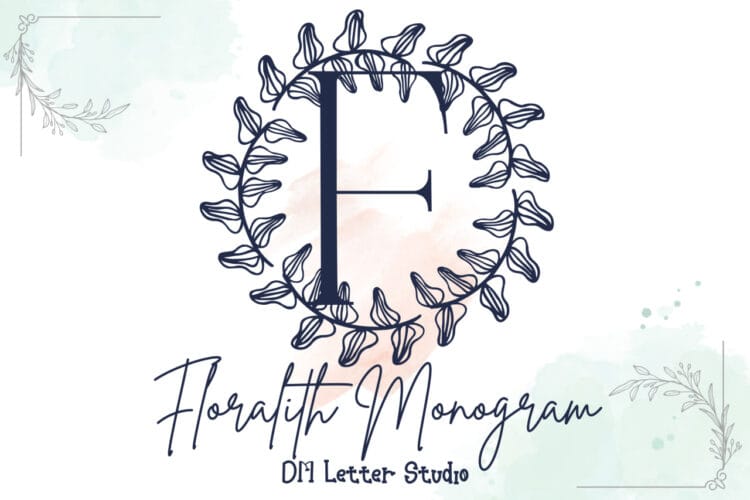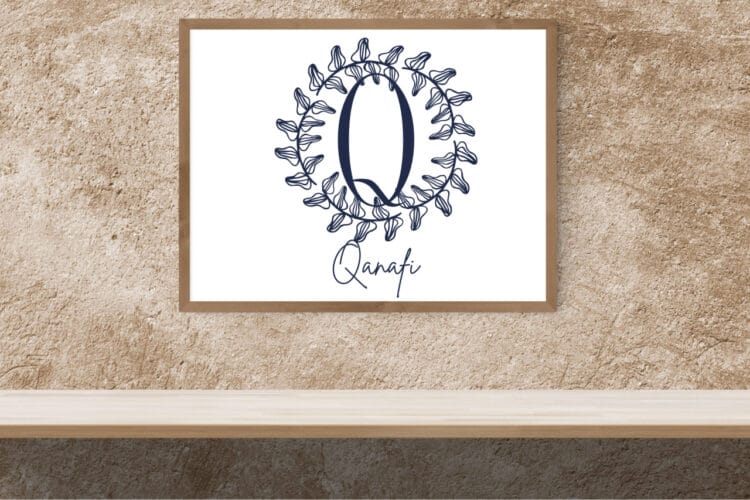
Meet Floralith, the Monogram Font
Floralith Monogram turns simple initials into refined floral crests with a soft, timeless character. The letterforms feel elegant and balanced, inspired by classic botanicals rather than heavy decoration. Because counters stay open, small tags remain crisp while larger marks look graceful and premium. Use it for wedding suites, boutique logos, stationery, keepsake gifts, and luxury packaging. As a result, your designs feel romantic, polished, and easy to personalize.
Fast layouts with the Floralith Monogram Font
Start with a single initial and let white space breathe. After that, add names or dates using a separate supporting font. Because Floralith holds shape at small sizes, labels, stickers, cards, and tags stay sharp. In addition, it pairs beautifully with wreath frames, oval borders, thin dividers, and subtle floral accents, so full sets come together quickly. Finally, save palette pairs like blush & ivory, sage & cream, champagne & charcoal, or navy & pearl to reuse across product lines.
Creative uses and quick wins
Wedding initials for invitations, menus, and signage
Logo seals, boutique badges, and brand marks
Gift tags, stickers, and keepsake box details
Packaging labels for candles, perfume, soap, and gifts
Design tips for Floralith Monogram Font
Keep the monogram as the main focus and use a separate font for additional text. Also, give it breathing room so floral details stay readable at small sizes. For a premium finish, try foil stamping, embossing, or letterpress on textured stock. Finally, export at 300 DPI for print and at 2× size for web so edges stay smooth everywhere.